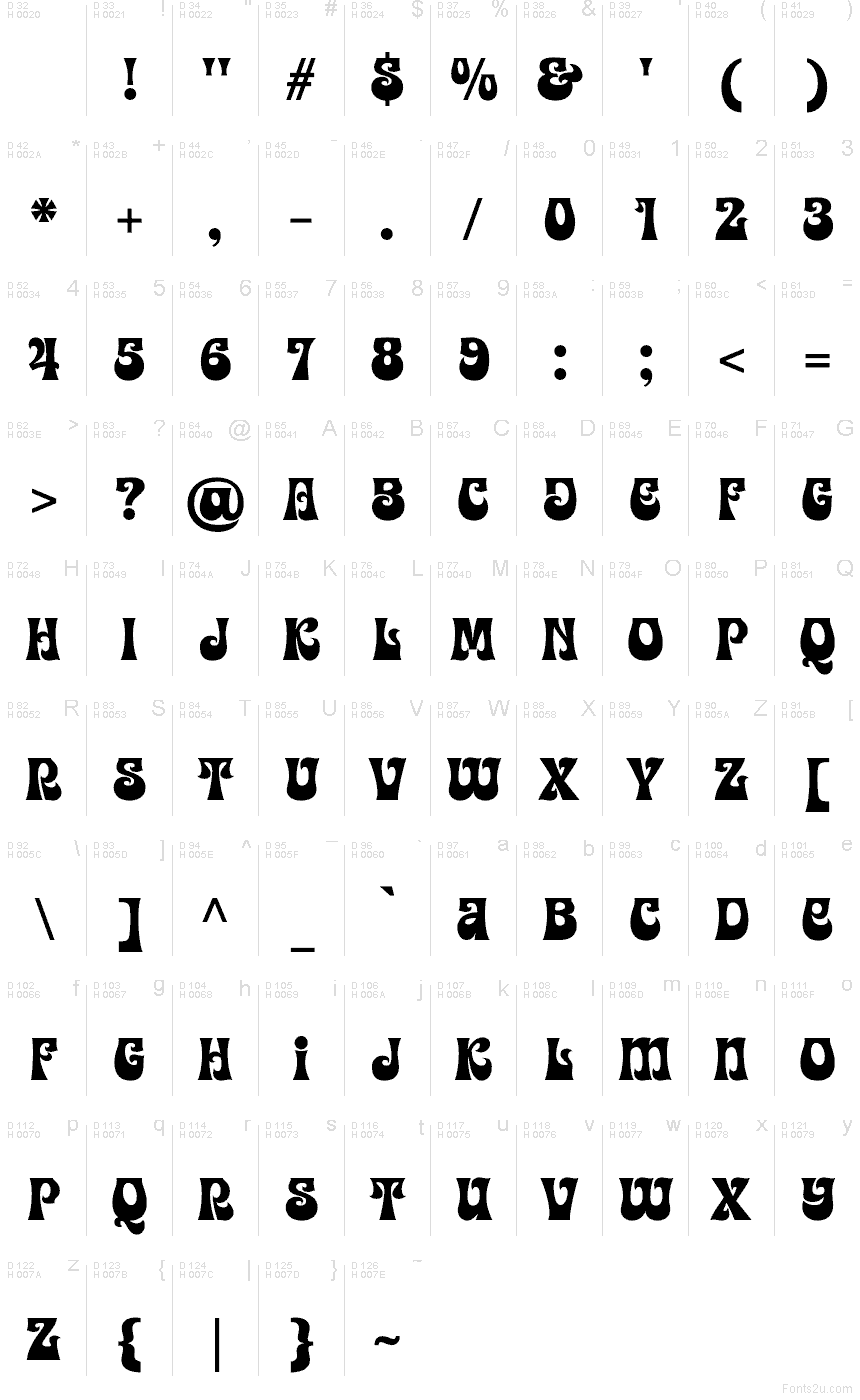
Easy Bond
Easy Bond font by Rantautype Studio is a free groovy display typeface that oozes 70s poster energy. Thick, inky strokes swell and pinch into hypnotic curls, while the tight spacing makes words feel like a single, wavy shape. There’s a fun tension between the heavy black forms and those playful inner swirls, giving headlines a bold, almost hand-painted presence.
Using Easy Bond, this free font shines on psychedelic posters, album covers, retro party invitations, funky branding, merch graphics, event flyers, and bold social media titles. It works best at large sizes where the chunky curves and bubbly details can really breathe. Pair this groovy typeface with a clean, narrow sans for body copy to keep layouts readable while the headline brings the vibe.